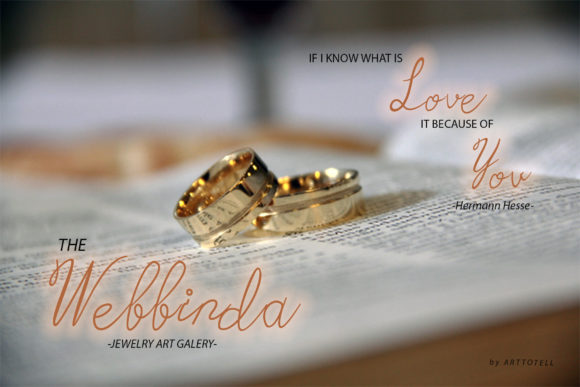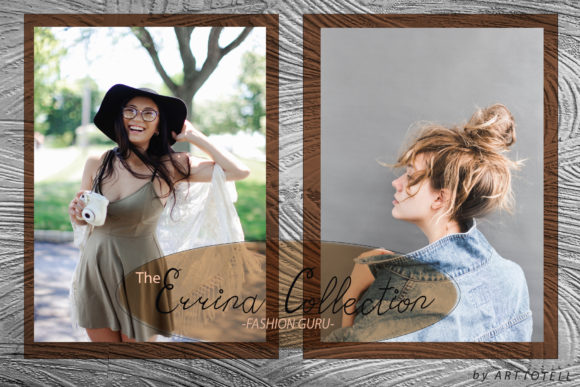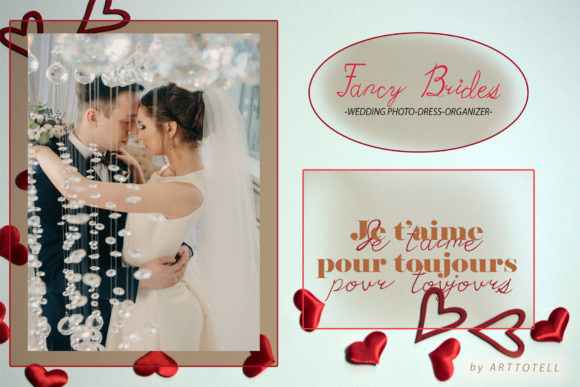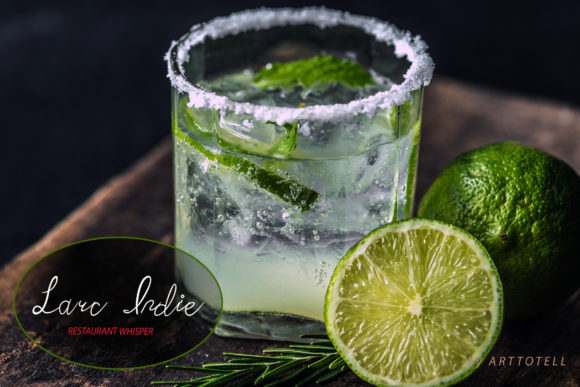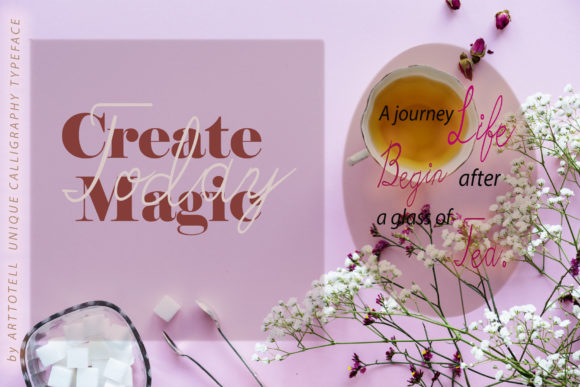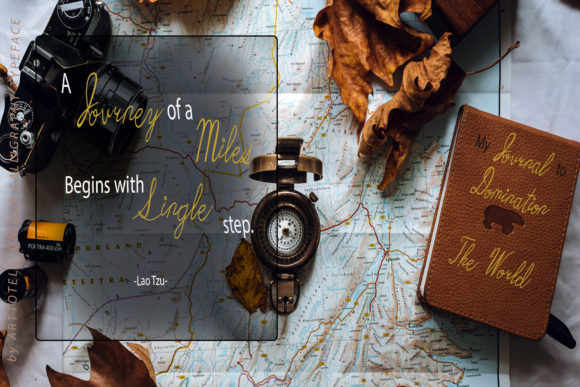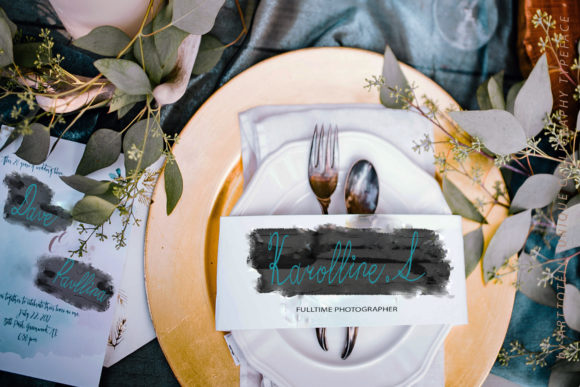
Hillary Youth Font
About Hillary Youth Font
The Hillary Youth is an unique handwritten font. It has an elegant style and is perfect for adding a natural touch to your branding, photography, invitations, quotes, watermarks, advertisements, product designs, labels, product packaging, and much more!